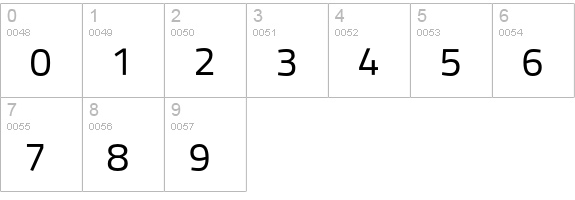
TitilliumText14L 400 wt Font Details
TitilliumText14L 400 wt font is a versatile and modern typeface that is perfect for a wide range of design projects. With its clean lines and balanced proportions, this font exudes a sense of professionalism and elegance. Whether you're designing a website, creating a brochure, or working on a branding project, TitilliumText14L 400 wt font is sure to make your text stand out. The best part is that TitilliumText14L 400 wt font is available for free download at FontsMarket.com. This means that you can easily access this high-quality font without any cost, making it a valuable resource for designers and creatives alike. Don't miss out on the opportunity to enhance your projects with the beauty and functionality of TitilliumText14L 400 wt font – download it today and take your designs to the next level.